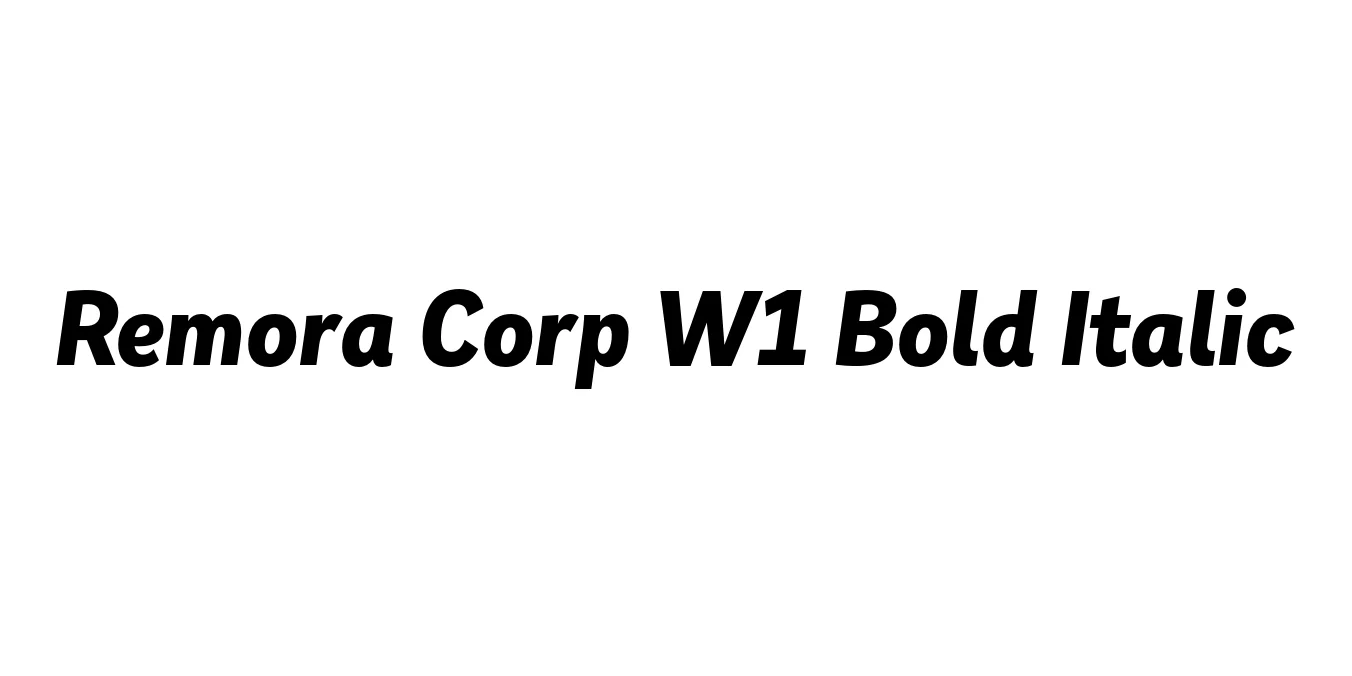
Remora Corp W1 Bold Italic
Designed by Nick Cooke
Remora Corp W1 Bold Italic is a sophisticated member of the expansive Remora superfamily, meticulously crafted by Nick Cooke for G-Type. The 'Corp' variation is specifically tailored for corporate environments, offering a more structured and business-centric aesthetic compared to the softer Remora Sans. This W1 designation signifies the first width in the series, providing a classic, well-proportioned stance that balances space efficiency with high-end legibility.
The Bold Italic weight is particularly effective for creating visual hierarchy and adding emphasis within professional documents. It features a precise slant that conveys motion and urgency without sacrificing the font's inherent stability. Its clean lines and modern grotesque influence make it a versatile choice for both high-resolution print materials and digital user interfaces, ensuring a consistent brand voice across all media platforms.
Remora Corp W1 Bold Italic Best Uses
Perfect for establishing a professional and authoritative brand identity.
Adds a strong, dynamic touch to magazine and report titles.
Great for brochures and advertisements that require clear, bold communication.
Ensures legibility and professional tone for business-oriented websites.